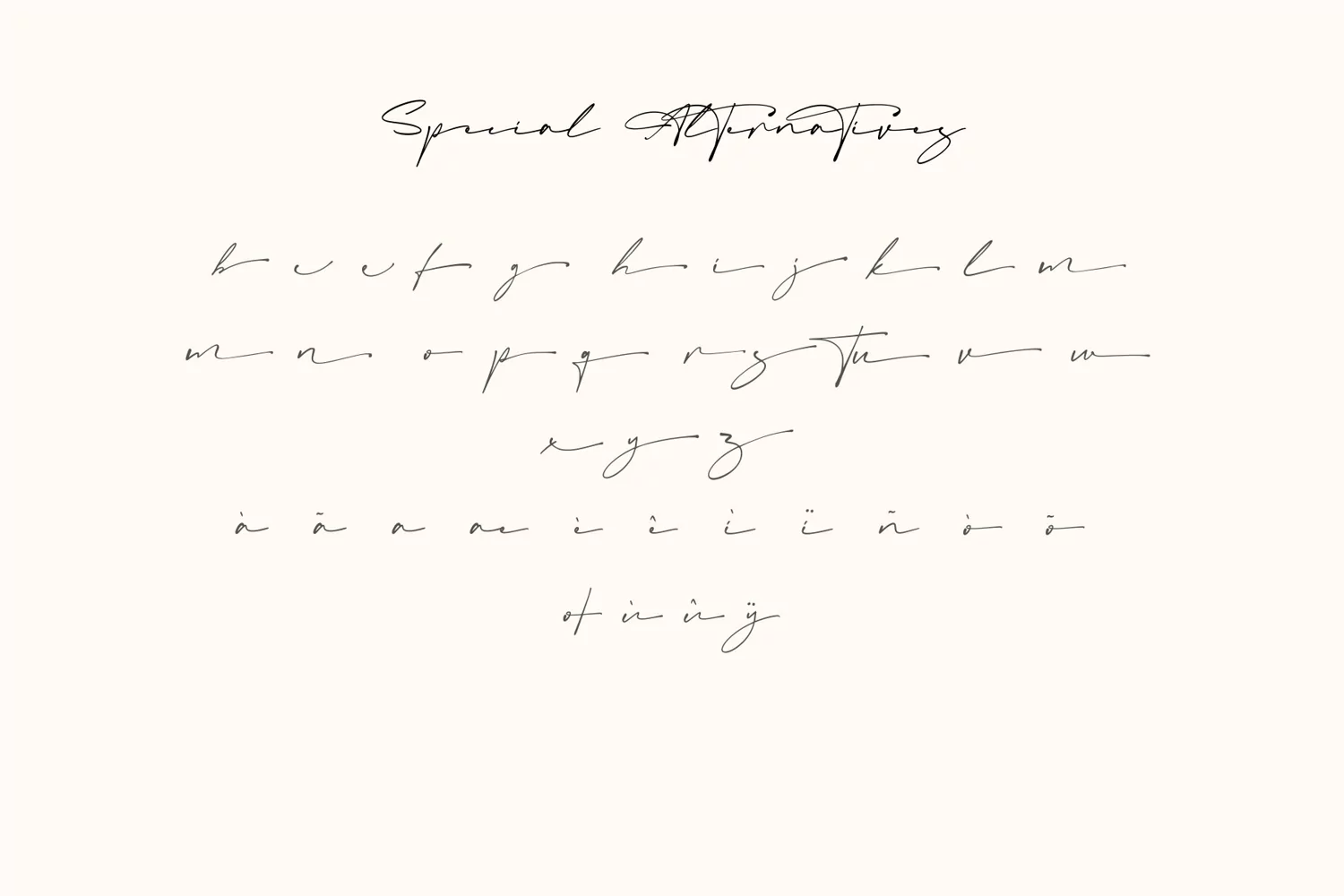
Haglos - Bold Script Font
This enchanting font will turn any creative idea into a true standout. Perfect fit for all of your logos, branding, social media, etc. Get creative with its unique playfulness, and use it to brighten up any crafting project!